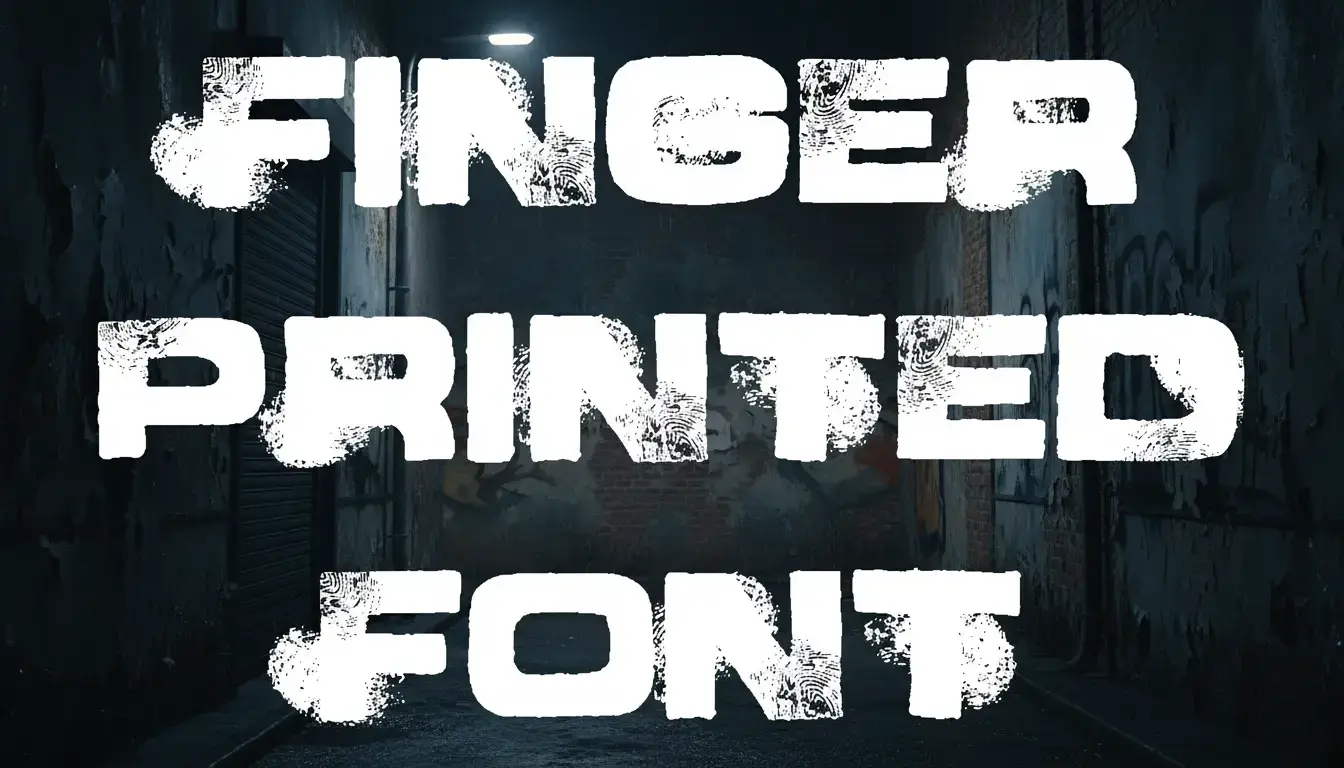
FINGER PRINTED FONT
FINGER PRINTED is a fancy font made by Imagex. Bold and full of character, it's built to stand out rather than blend in. You can download it for free and test it with your own words in the preview above.
- Designer: Imagex
- Glyphs: 210
- Characters: A–Z, 0–9 and basic punctuation
FINGER PRINTED is an all-caps font: it only has capital letters. Lowercase letters will show up in a different font or as empty boxes, so turn on Caps Lock when you type. All ten numbers are included. Everyday marks like &, !, ? and @ are there too. Thanks to its accented letters, it also works for Spanish, French, German, Portuguese and Italian, not just English.
Think of FINGER PRINTED for posters, logos and eye-catching headlines. Use it for one standout word or headline and let simpler fonts handle the rest.
Yes. FINGER PRINTED includes the accented letters needed for Spanish, French, German, Portuguese and Italian, so it works for more than just English.